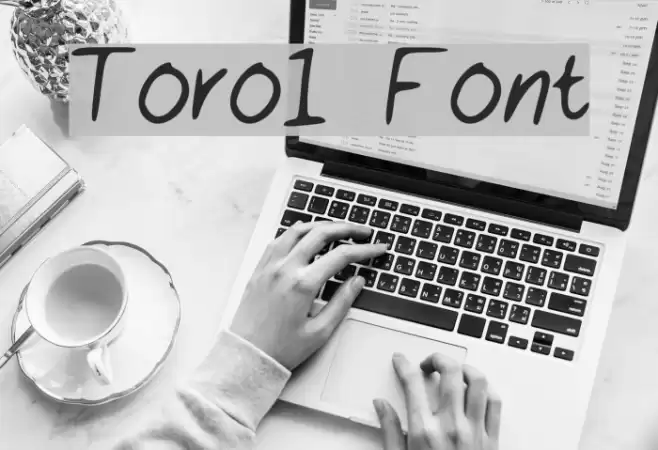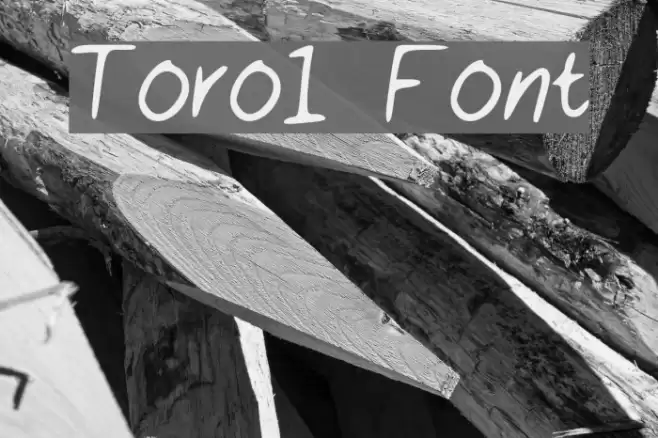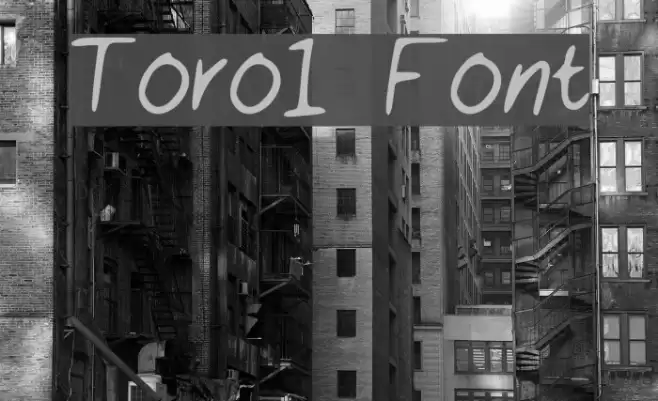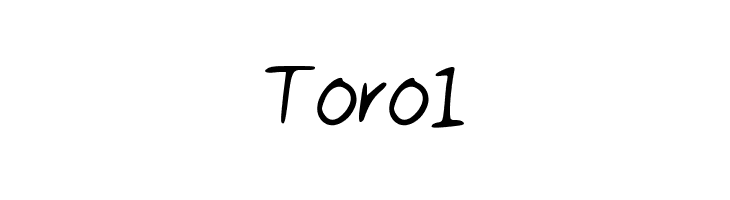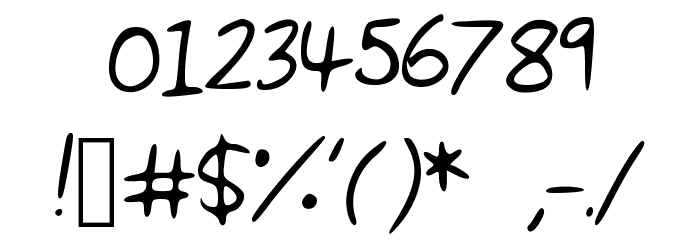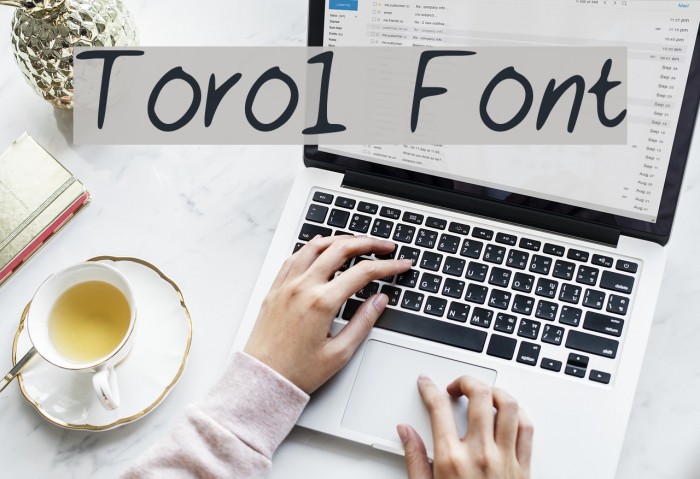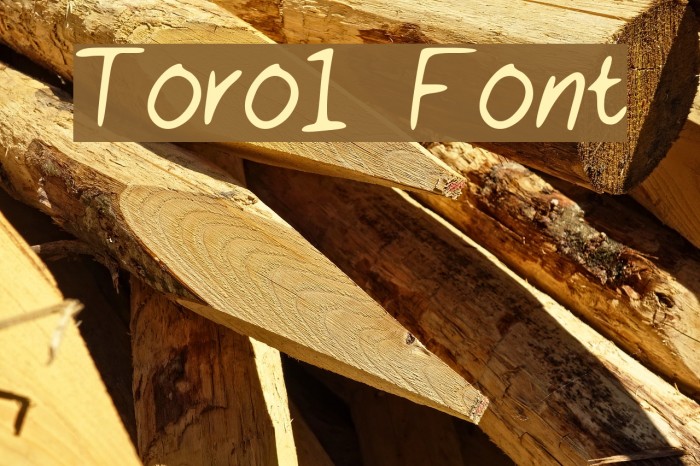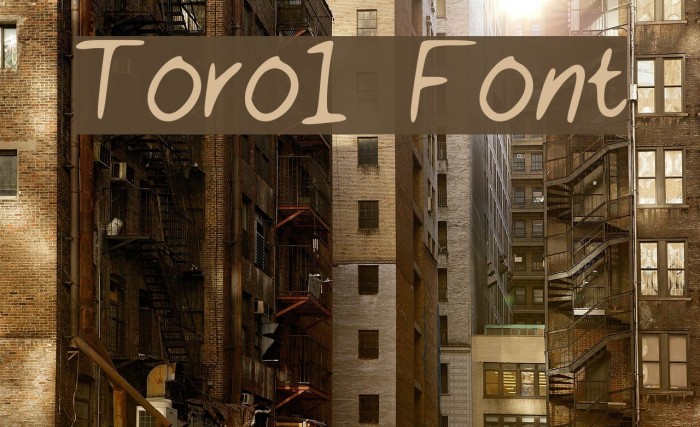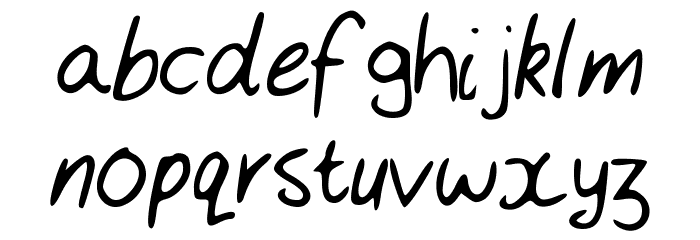
Toro1 Font
Toro1 Description
This font exhibits a playful and informal handwritten style, characterized by its smooth, flowing curves and slightly irregular letterforms. The uppercase and lowercase letters maintain a consistent style, with a casual and approachable appearance. The numerals and special characters follow the same aesthetic, ensuring a cohesive look across all elements. The strokes are moderately thick, providing good readability while retaining a friendly and relaxed vibe. This font is ideal for projects that require a personal touch or a sense of warmth and friendliness.
A playful, informal handwritten font with smooth, flowing curves from Uncategorized fonts.
- Proposed Projects: Ideal for greeting cards, invitations, personal blogs, and children's book covers.
- Overall Style: Casual
- Use Case: Headlines, Logos, Informal Text